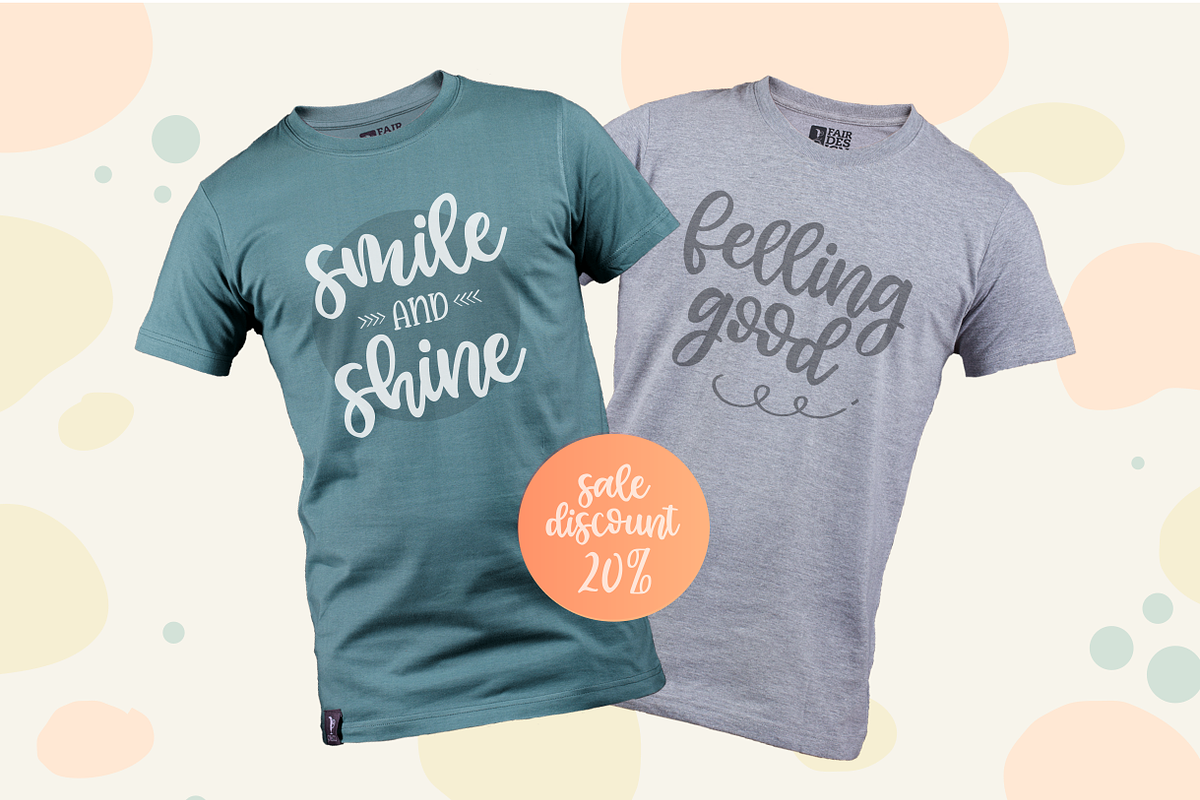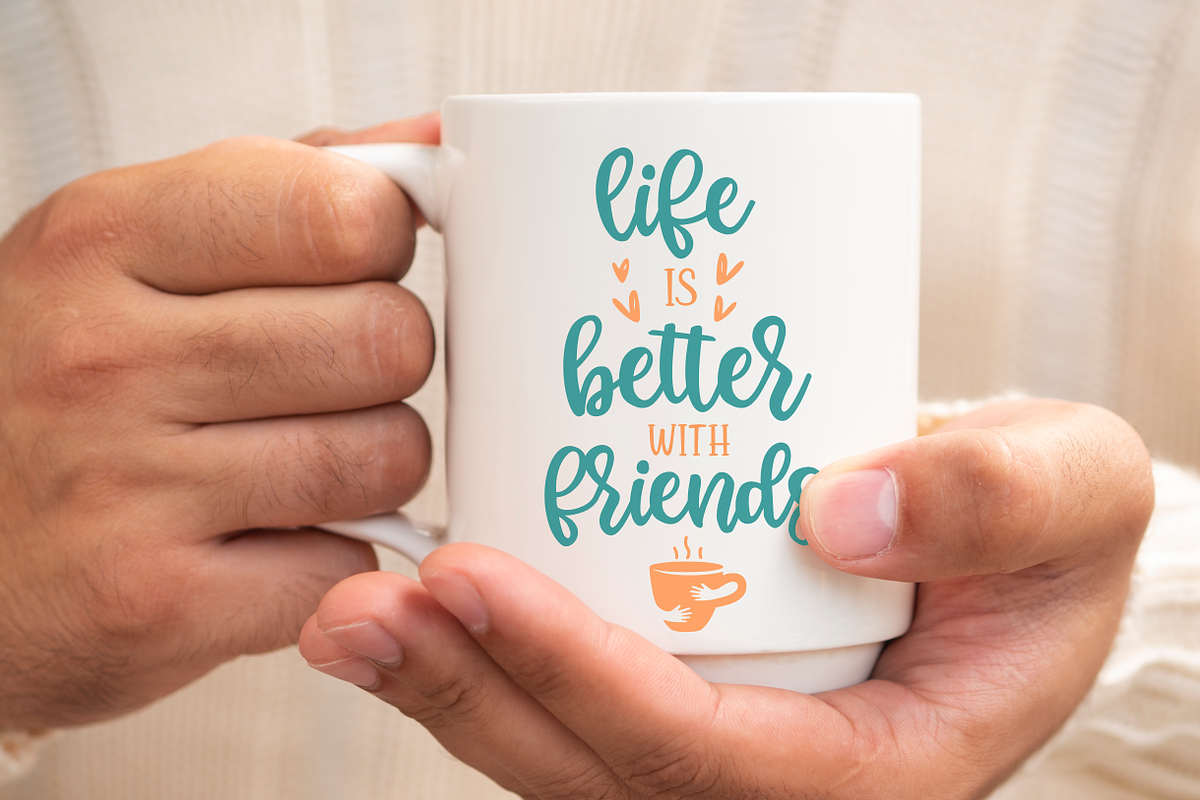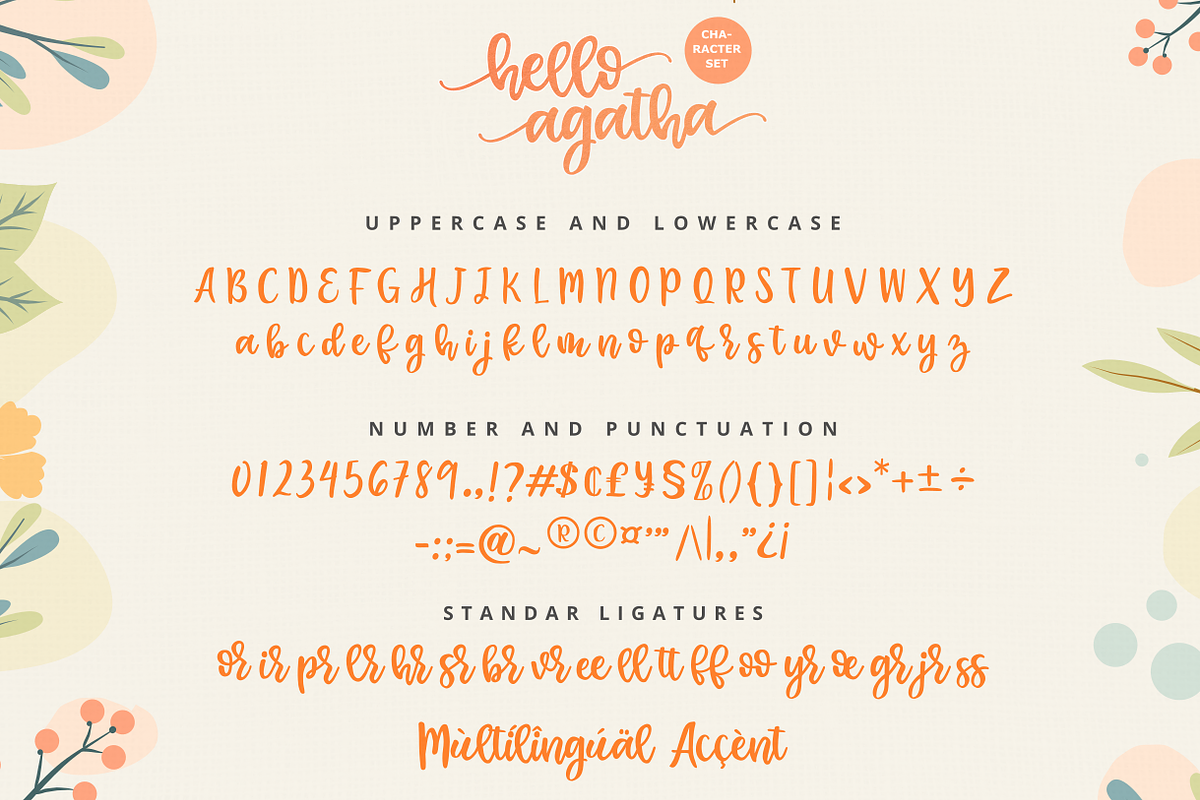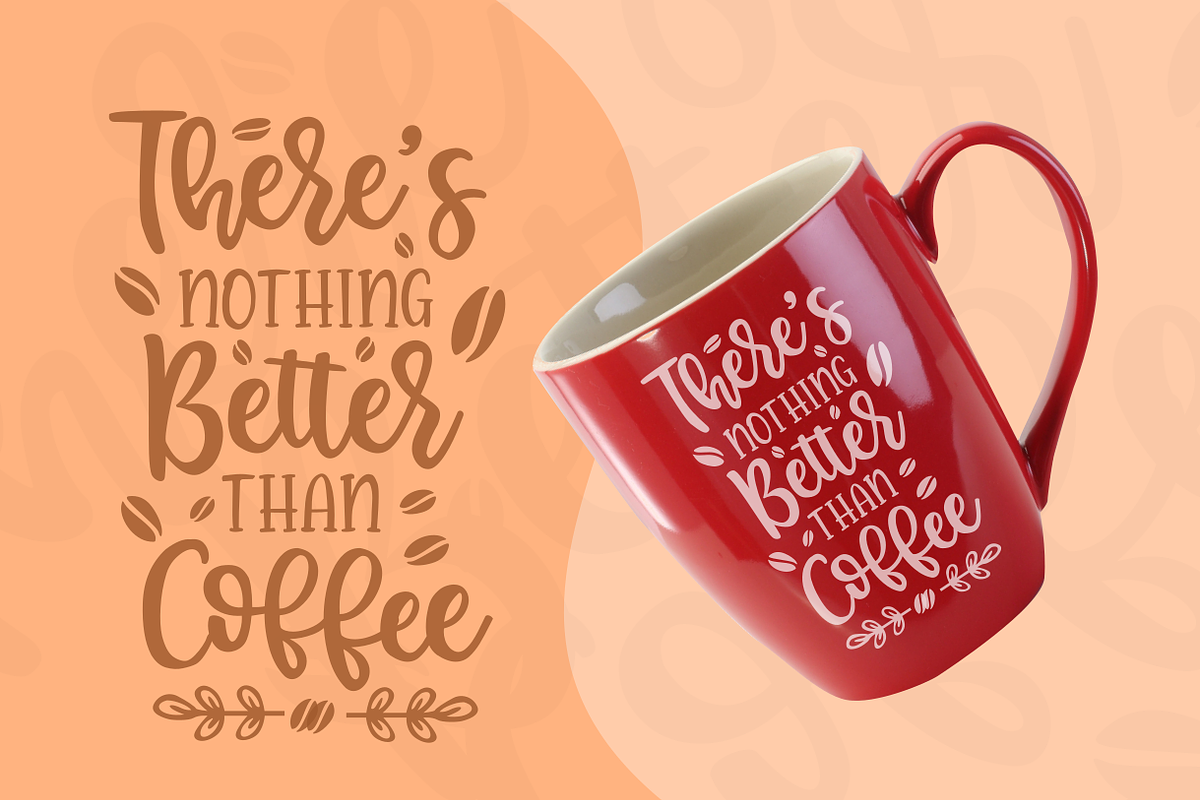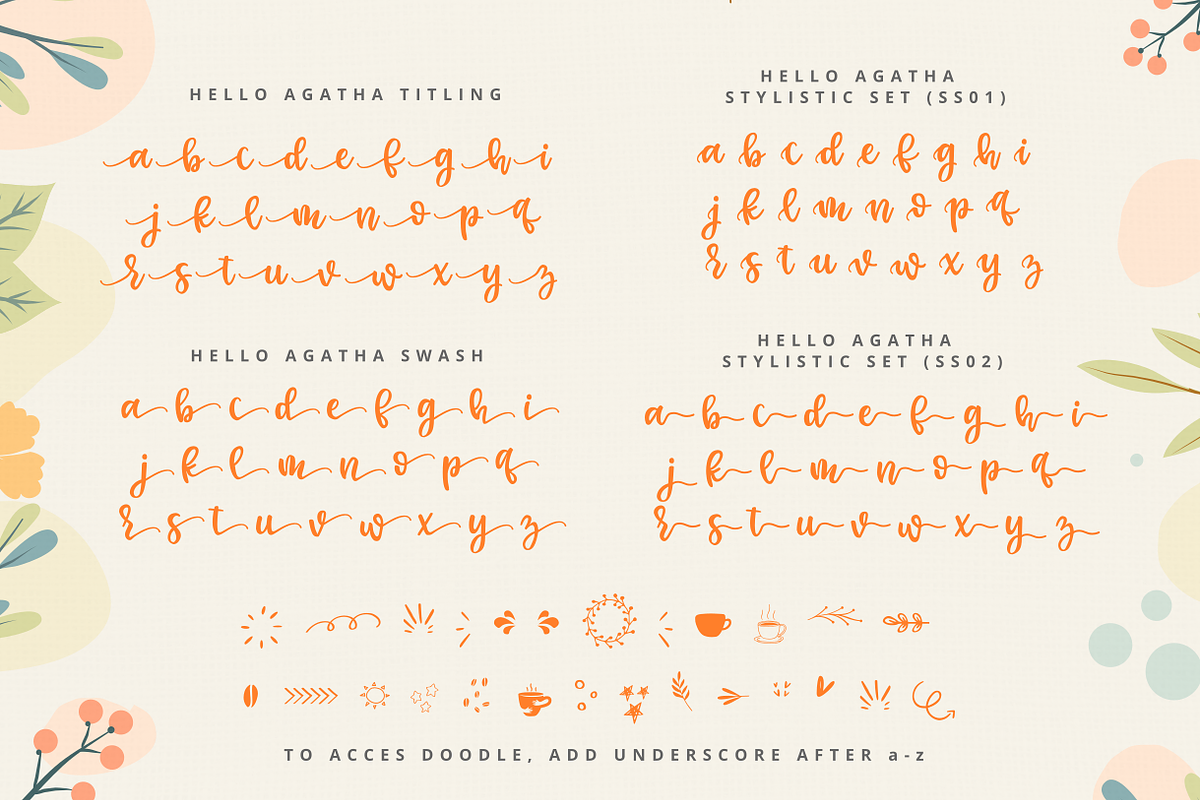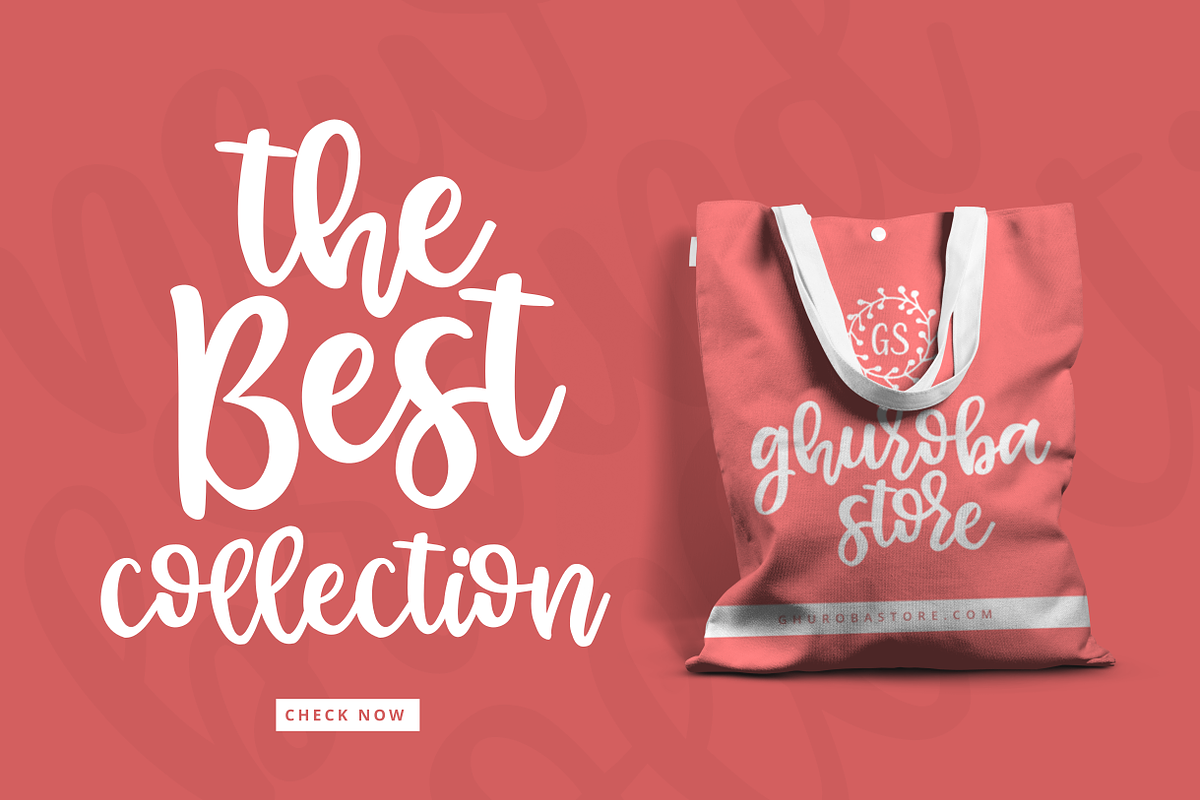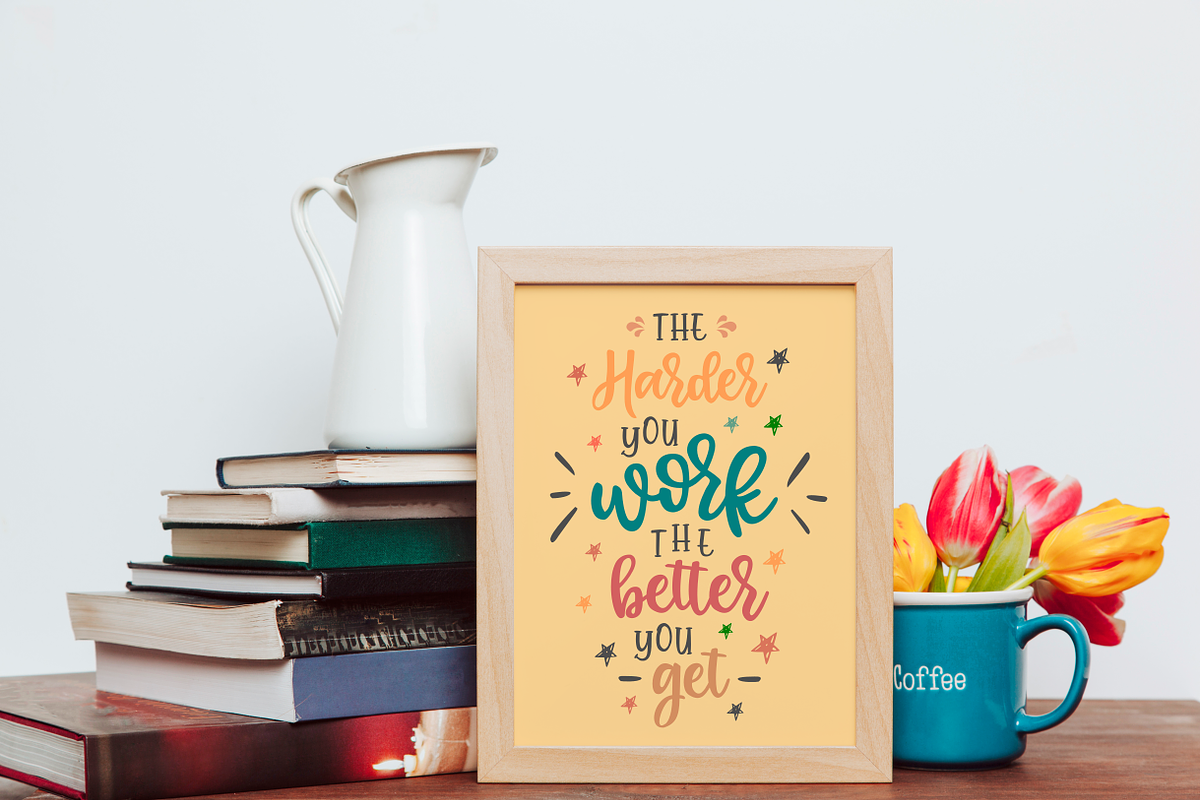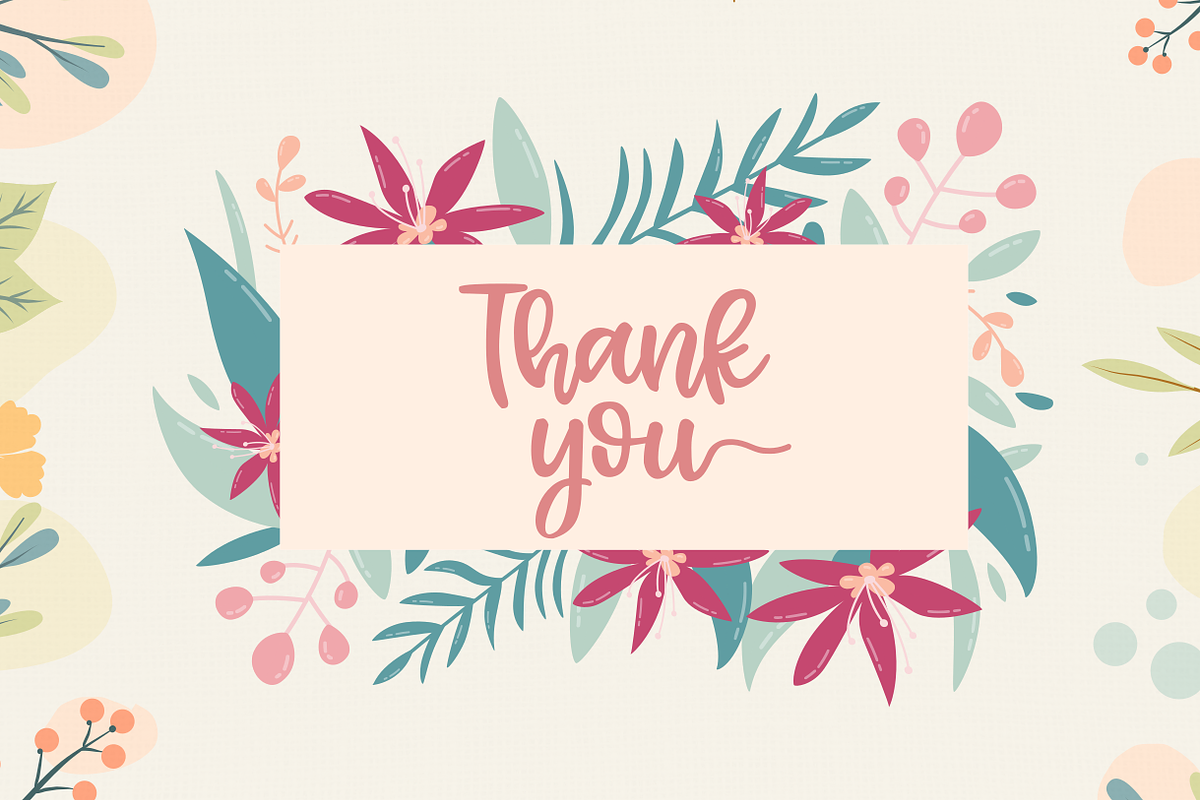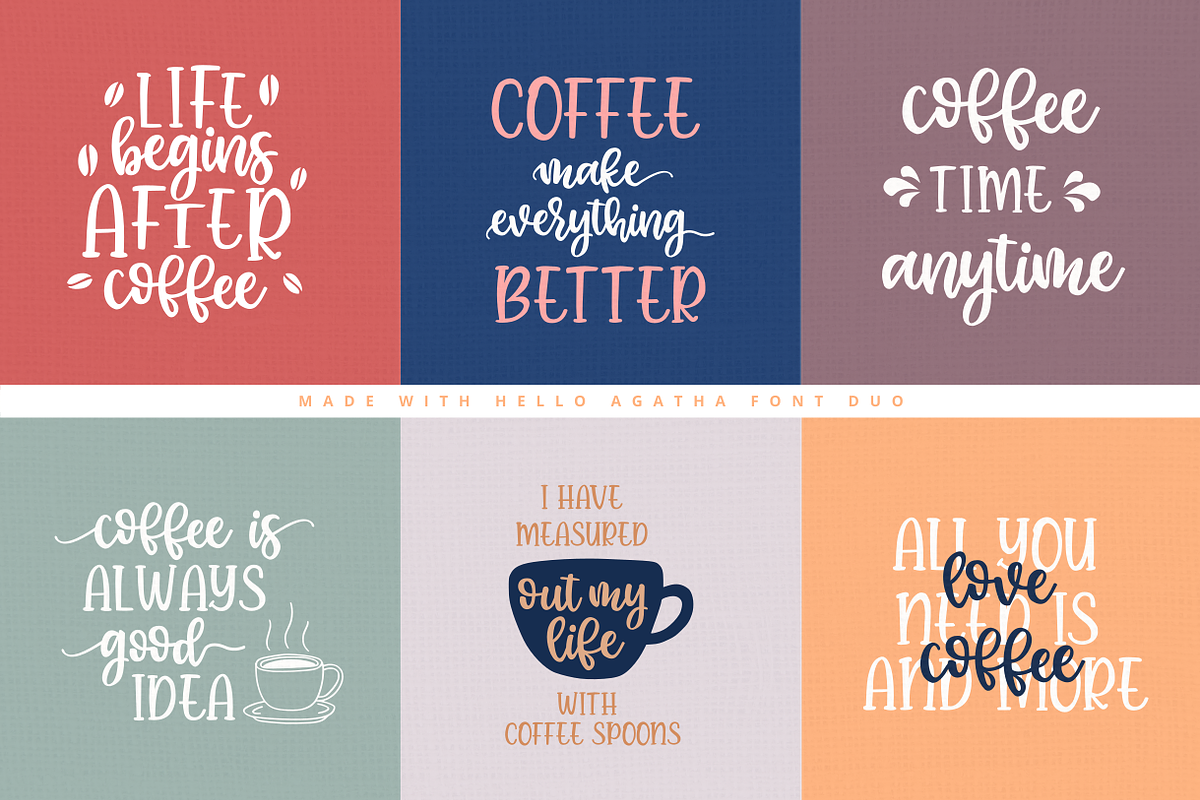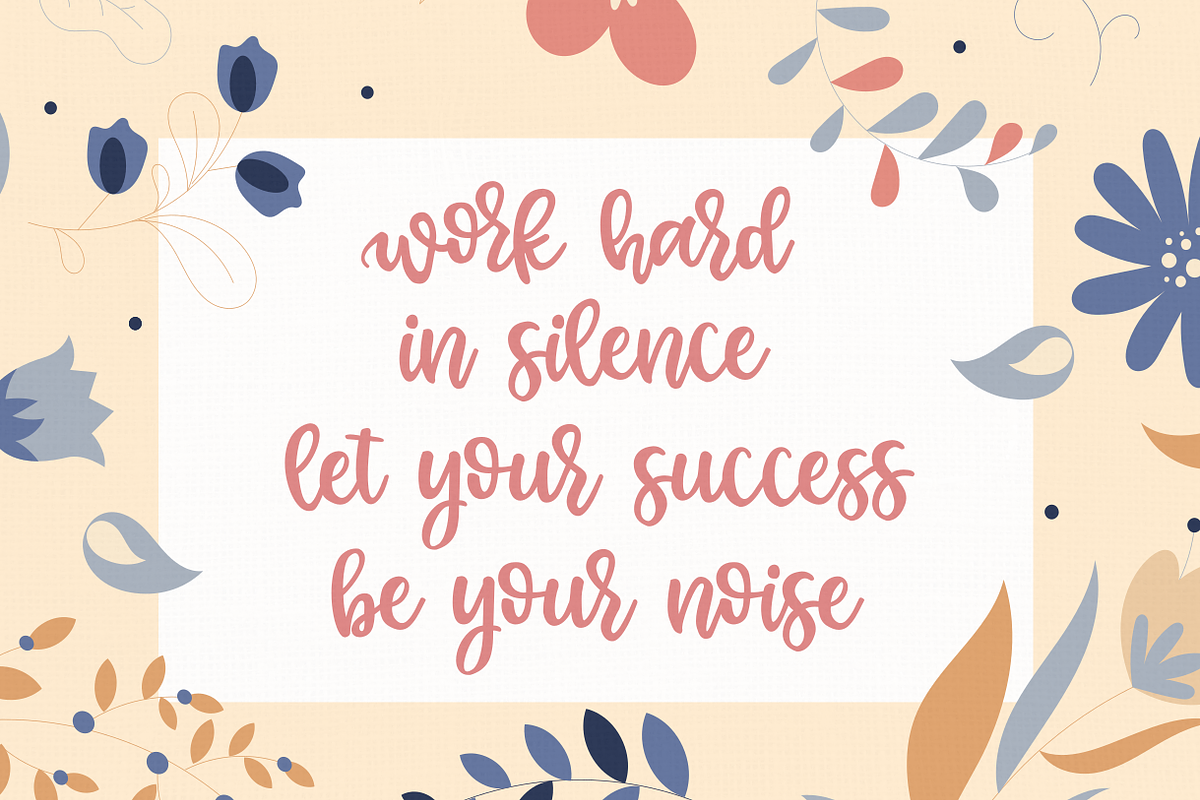
Hello Agatha Font Duo + Extra Doodle
Introducing "Hello Agatha" - a delightful font pair with a handy set of illustrations
This font duo consists of a beautiful script and a playful caps serif font. Together or separate they are perfect for tshirt design, quotes, mug, bag canvas, greeting cards, branding, stationery design, social media, packaging, prints and many more! If you combine them with the illustrations - you can create even more typographic designs, logos, labels and seasonal cards
Hello Agatha script comes with tons of alternates for each lower case letter and a selection of standard ligatures so the possibilities are endless.